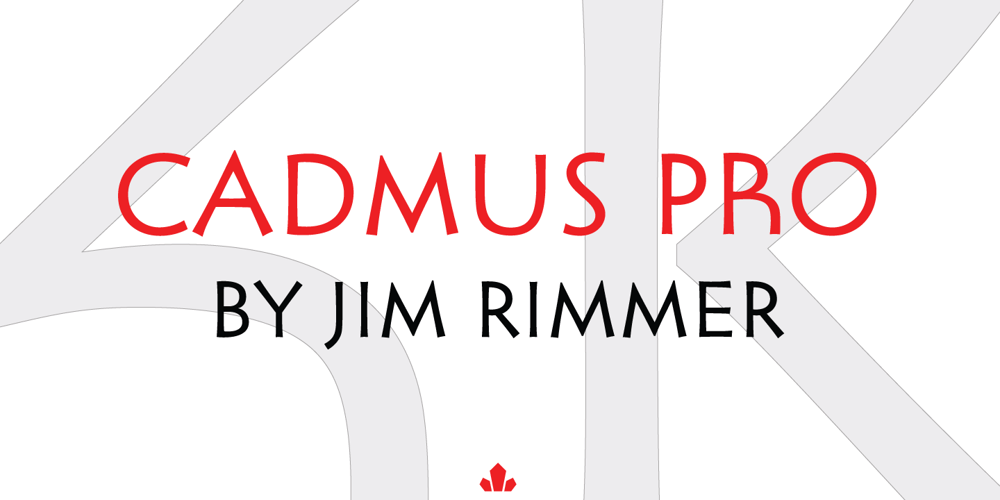
Cadmus Pro Font Family was designed by Jim Rimmer and published by Canada Type. Cadmus Pro contains 1 styles and family package options. Cadmus Pro is the newly remastered and greatly expanded version of a Jim Rimmer design based on a type originally done by hand lettering artist Robert Foster. Foster’s type, named Pericles, was published by ATF in the 1930s, and used in lettering magazines and advertising headings. The design is based closely on early inscriptional Greek. Cadmus Pro comes with over 1130 glyphs, covering pretty much all Latin languages (including Vietnamese) as well as Cyrillic, Greek and Hebrew. OpenType features include stylistic alternates, automatic fractions, ordinals, and small figure ranges for superiors and inferiors. Proceeds from this font will be put towards a variety of Canadian typography education causes.